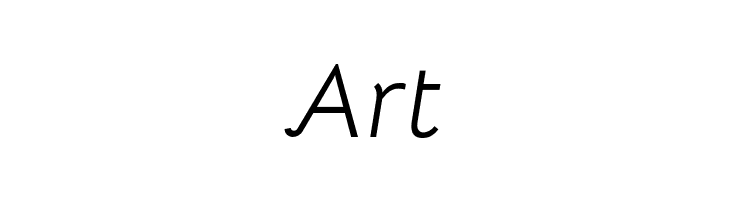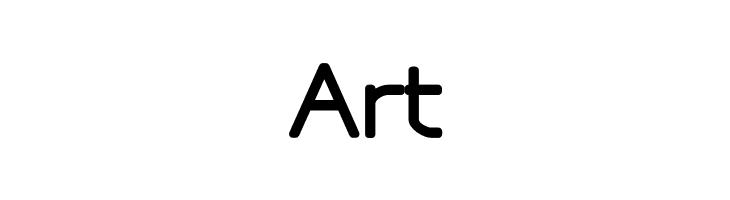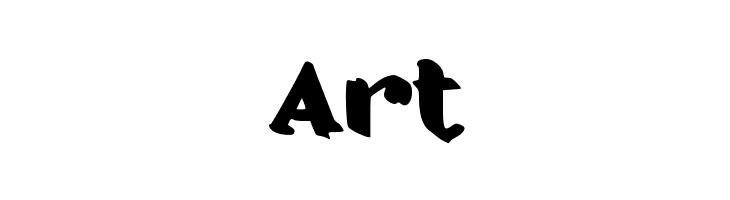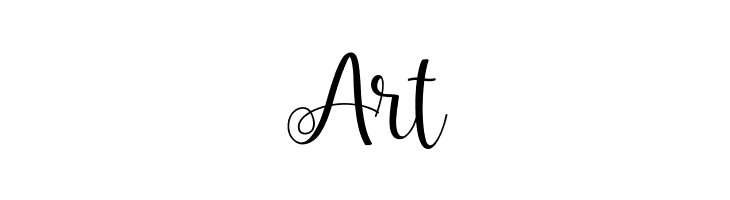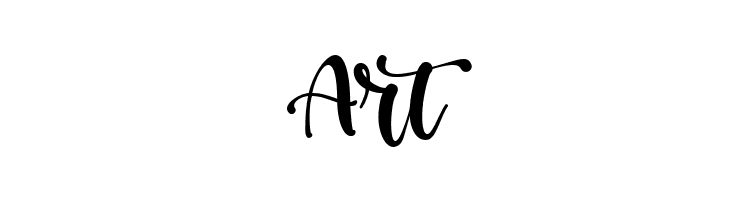
A lively and elegant script font with dynamic, flowing strokes.
A lively and elegant script font with smooth, cursive letterforms.
A tall, elegant font with flowing, cursive-like strokes and dramatic flair.
A playful, elegant italic font with smooth curves and a friendly appearance.
A playful, polka dot patterned font with bold, rounded characters.
A modern, rounded font with a friendly and approachable style.
A bold, hand-painted style font with an expressive and dynamic appearance.
A whimsical, cursive font with elegant loops and flowing connections.
A lively and expressive script font with bold, flowing cursive letters.
A playful, bold, and rounded font with a hand-drawn, whimsical style.